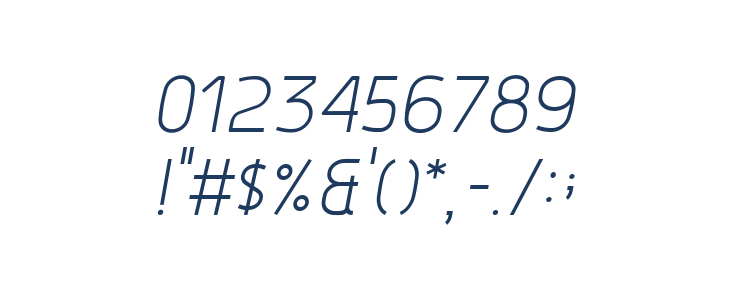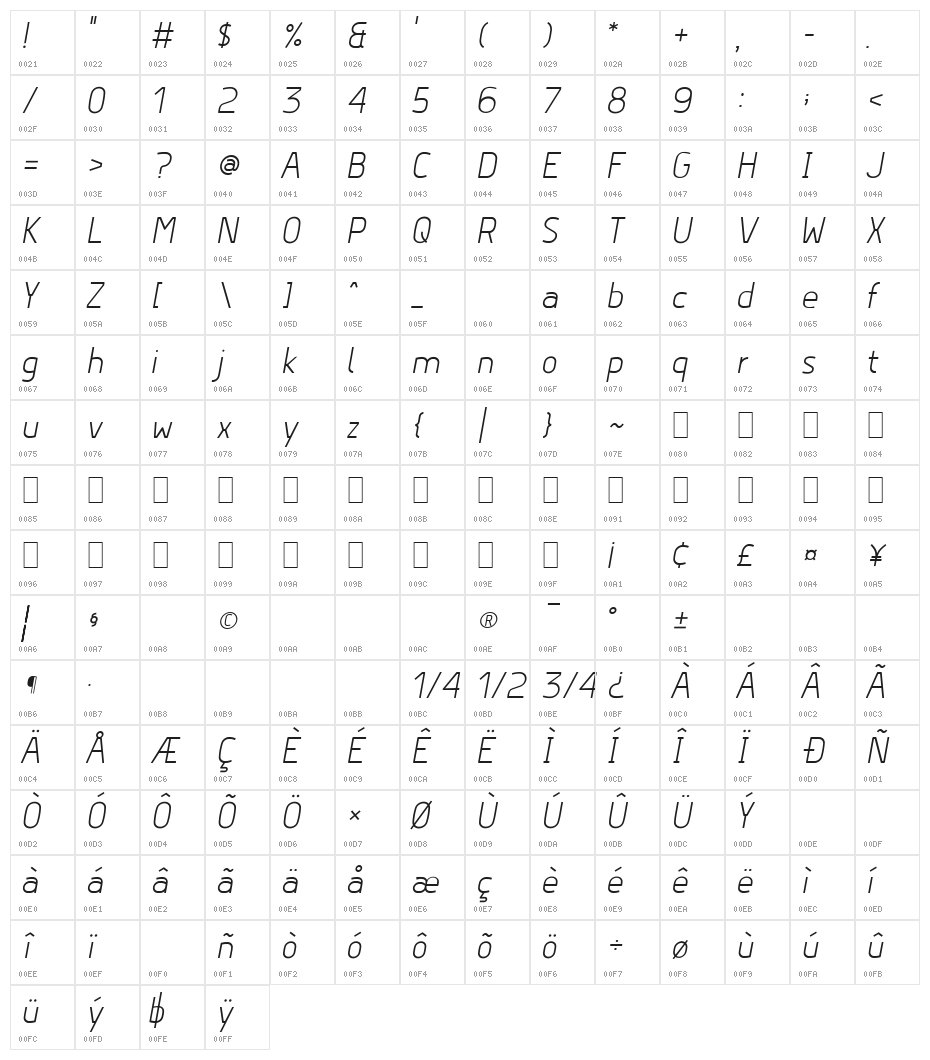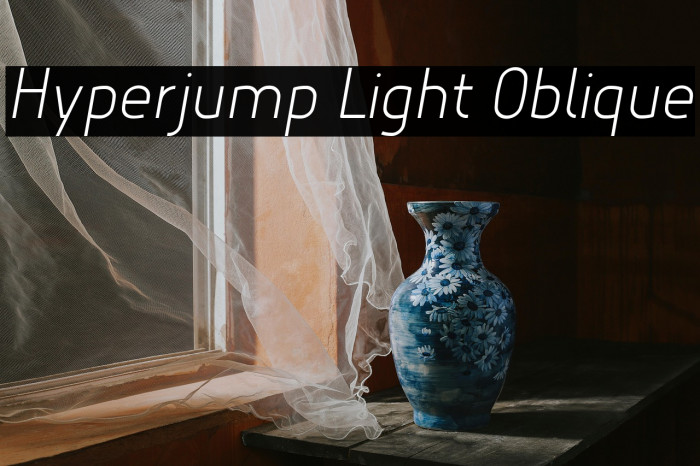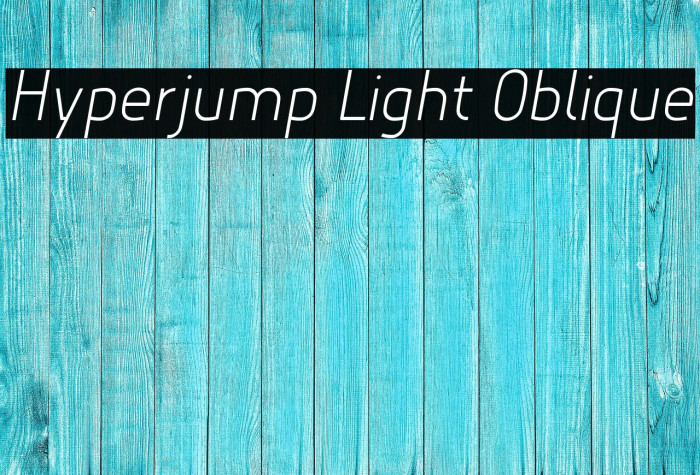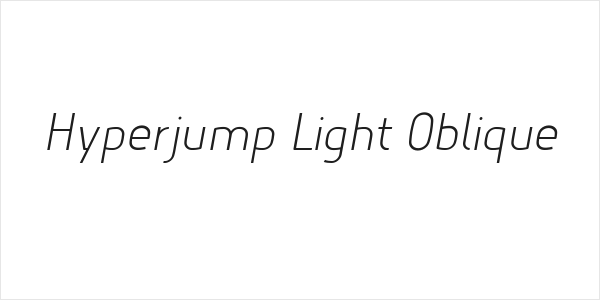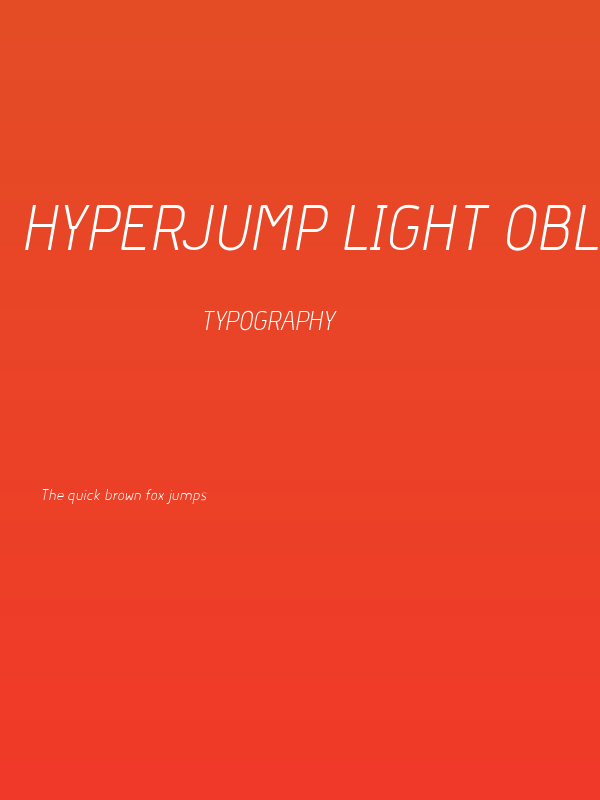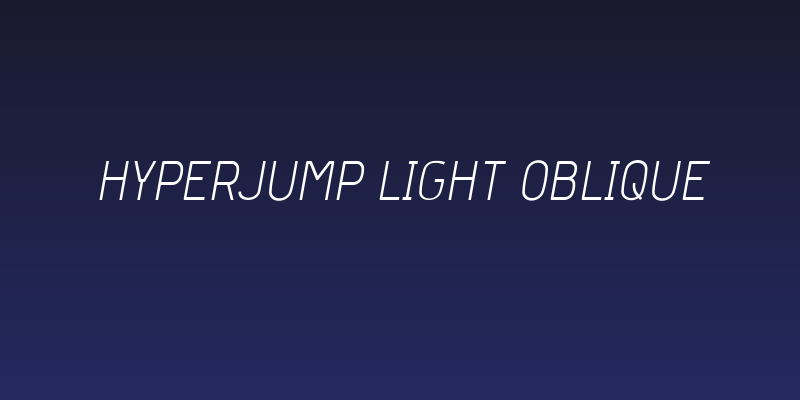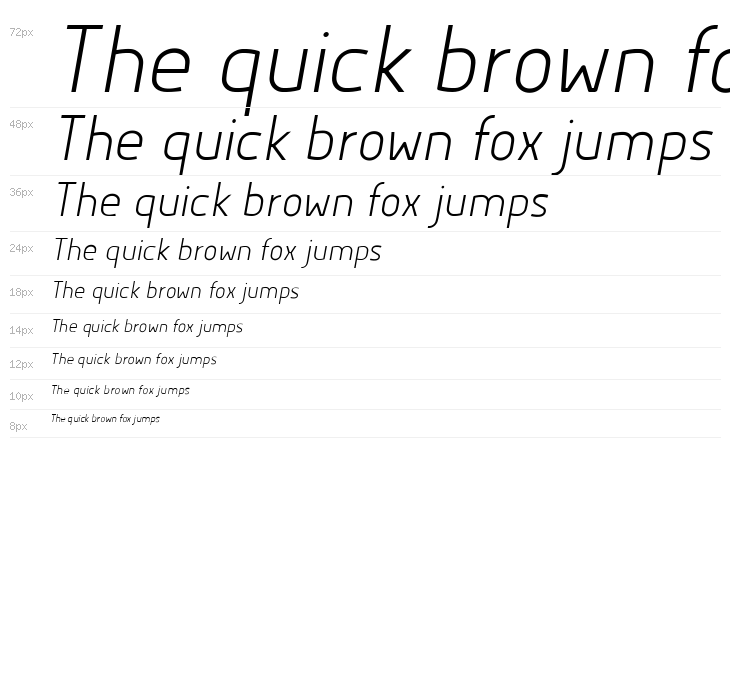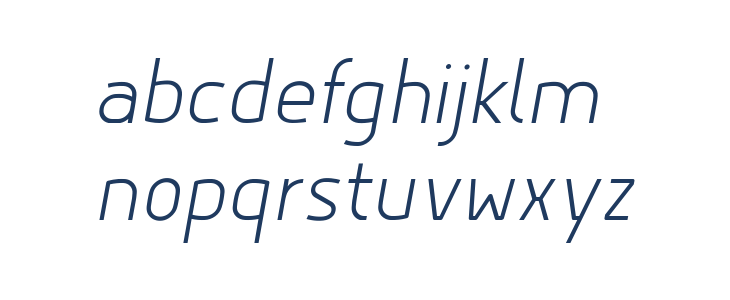
Hyperjump Light Oblique Font
Hyperjump Light Oblique Description
This font features a sleek, modern design with a light weight and oblique style, giving it a dynamic and forward-leaning appearance. The characters are clean and streamlined, with a subtle curvature that adds a touch of elegance. The uppercase and lowercase letters maintain a consistent height, contributing to a uniform look. The numerals are distinct and easy to read, while the special characters are well-integrated, ensuring versatility in various applications. The overall design is minimalistic, making it suitable for contemporary projects that require a sophisticated yet approachable aesthetic.